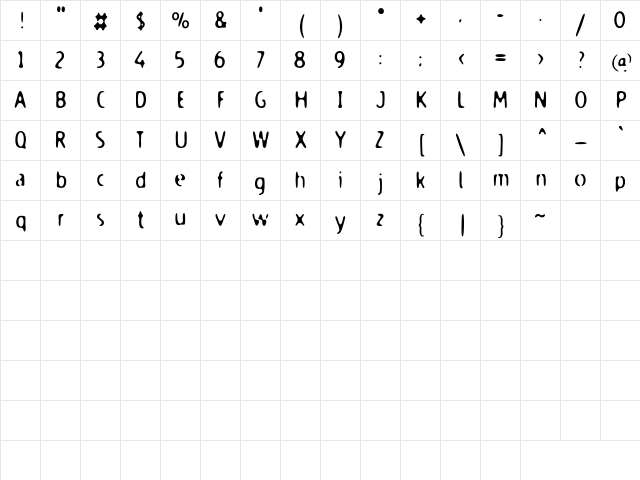
BureaucracyMunicipal Regular Free Font
BureaucracyMunicipal Regular
Design Context for BureaucracyMunicipal
BureaucracyMunicipal is a composed and adaptable typeface that performs quietly and consistently across a wide range of design contexts.